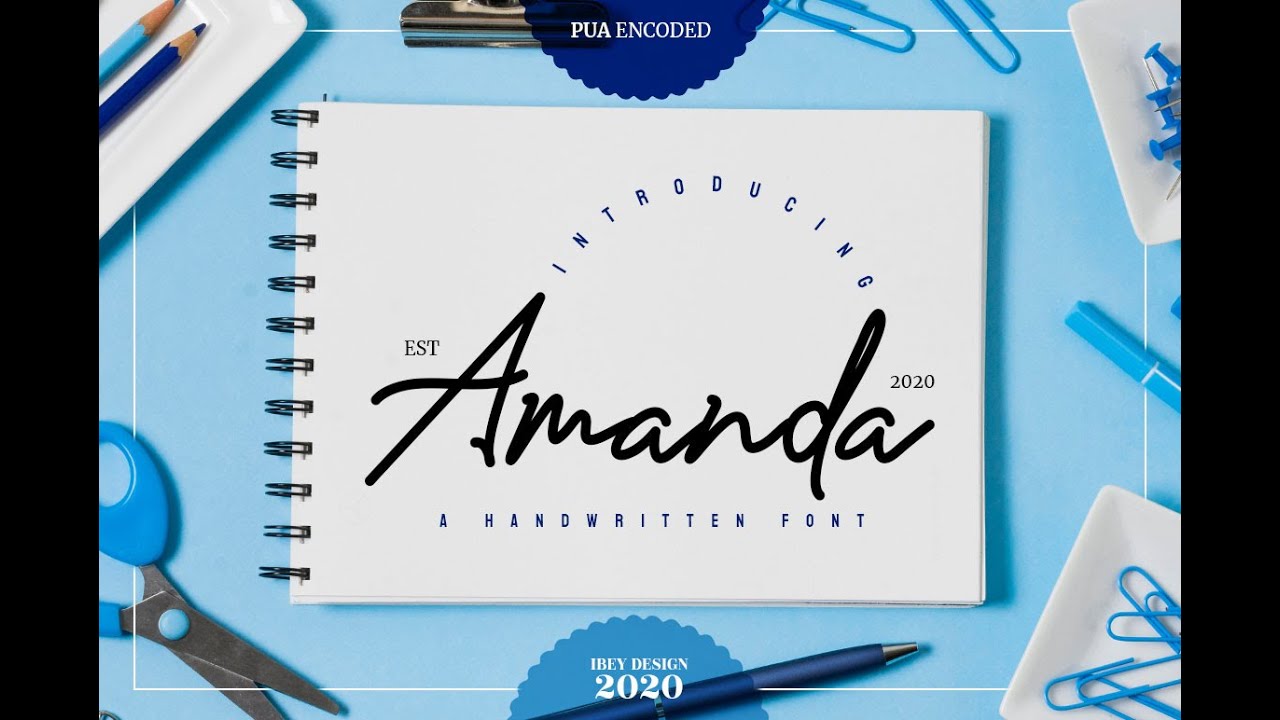
Amanda Handwritten Script Font
Amanda Handwritten Script Font Photography This font is free for personal use only. new bundle popular fonts, only $ 4. purchase link: fontbundles art design 106733 font bundle with limited time. Amanda handwritten font is a modern handwritten script font can make your text appear elegant, luxurious, and modern!. inspired by a sweet love contemporary handwriting fonts with ligatures and alternative styles ready to add unique look and bloom on your design.
Amanda Handwritten Script Font Script Amanda handwritten font is a modern handwritten script font can make your text appear elegant, luxurious, and modern!. inspired by a sweet love contemporary handwriting fonts with ligatures and alternative styles ready to add unique look and bloom on your design. I design this font with natural writing gesture and stylish touch to be an elegant font that ideal for every design projects. it is a perfect font with signature style for any design project such as branding, packaging, or just for text overlay to any background image. Amanda script is licensed under the 1001fonts free for personal use license (ffp). Get the amanda script font free and craft outstanding typography. best for presentations, banners, creative prints, and digital projects.
Amanda Handwritten Script Font Svg Ttf Png Digital Download Etsy Amanda handwritten script font is a unique and elegant handwritten font. it has a natural and stylish flow and was made with the intention to be used by photographers as a watermark for their photography business, but can also be used for many other purposes. Amanda is a unique and incredibly relaxed handwritten font. it looks stunning on wedding invitations, thank you cards, quotes, greeting cards, logos, business cards and every other design which needs a handwritten touch. Amanda is a handwritten script display font that was created by ade studio with a lovely & friendly shape style. this script font has a wide selection of alternative styles to choose from. Amanda simplifies elegance into one truly outstanding handwritten font. this font is the perfect fit for all of your logos, branding, social media, and crafty diy projects.
Amanda Handwritten Script Font Svg Ttf Png Digital Download Etsy Amanda is a handwritten script display font that was created by ade studio with a lovely & friendly shape style. this script font has a wide selection of alternative styles to choose from. Amanda simplifies elegance into one truly outstanding handwritten font. this font is the perfect fit for all of your logos, branding, social media, and crafty diy projects.